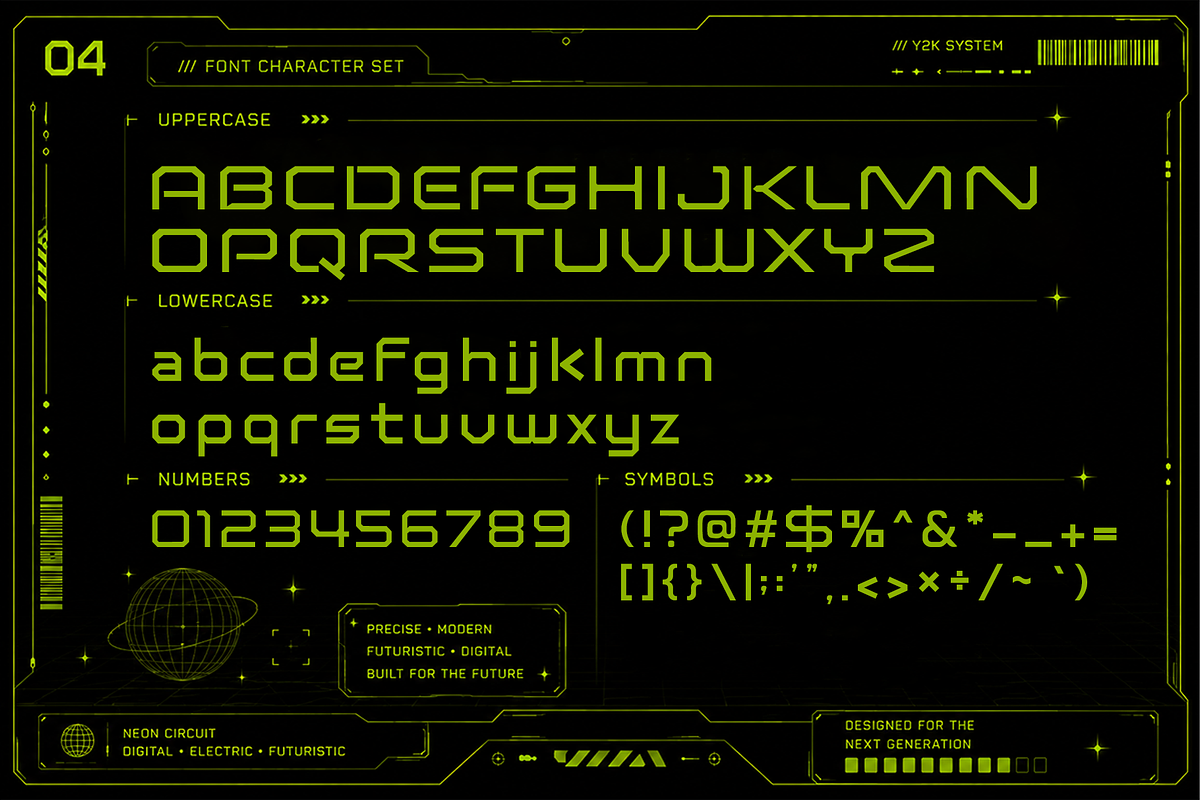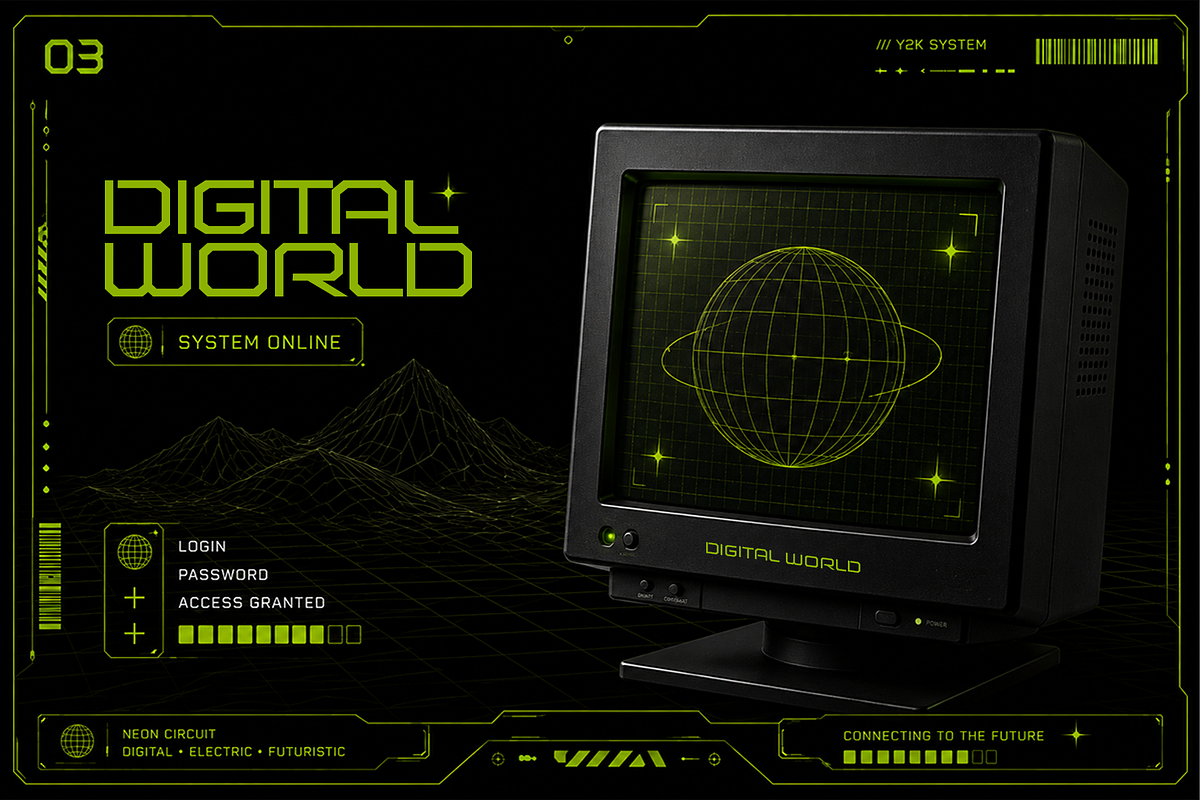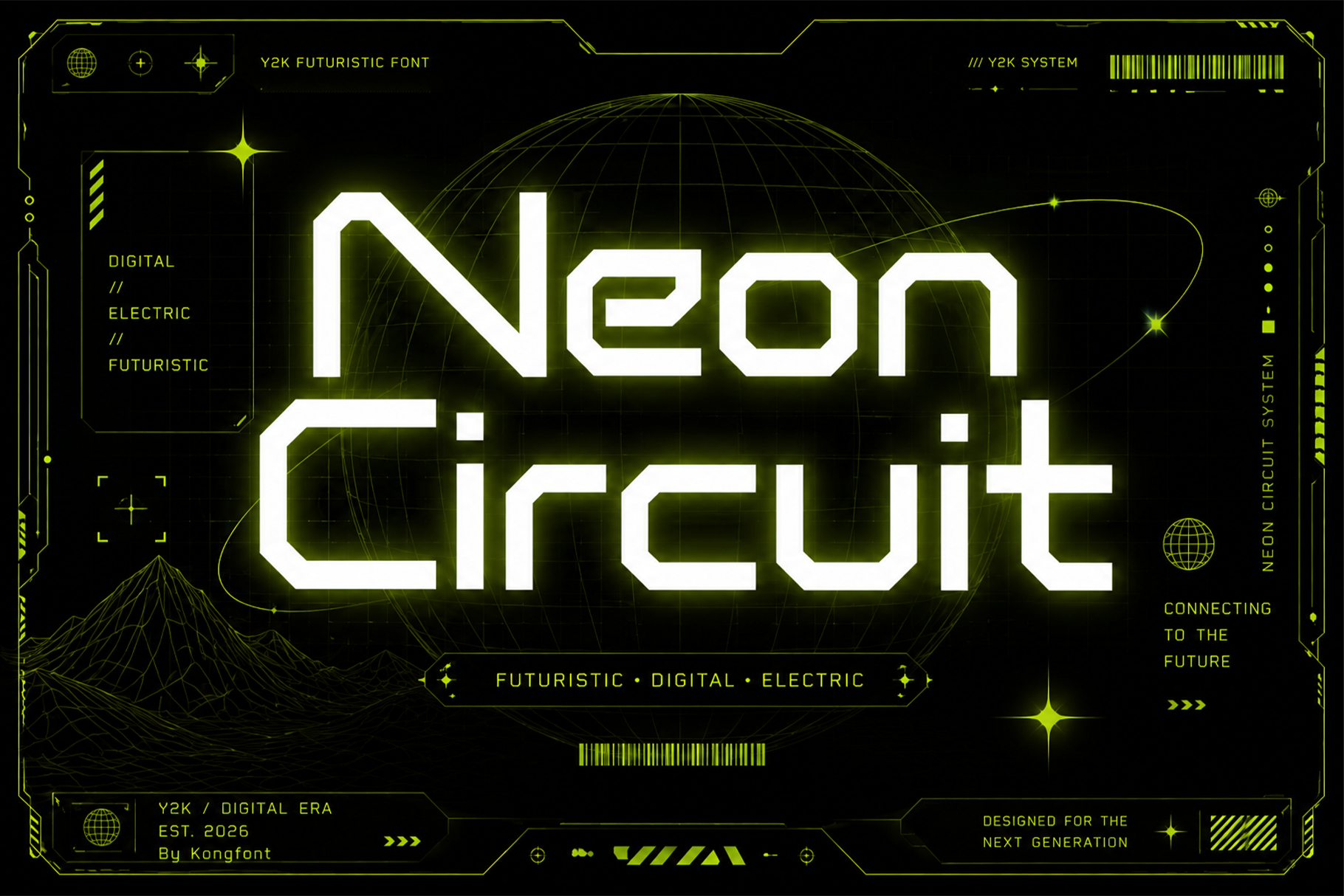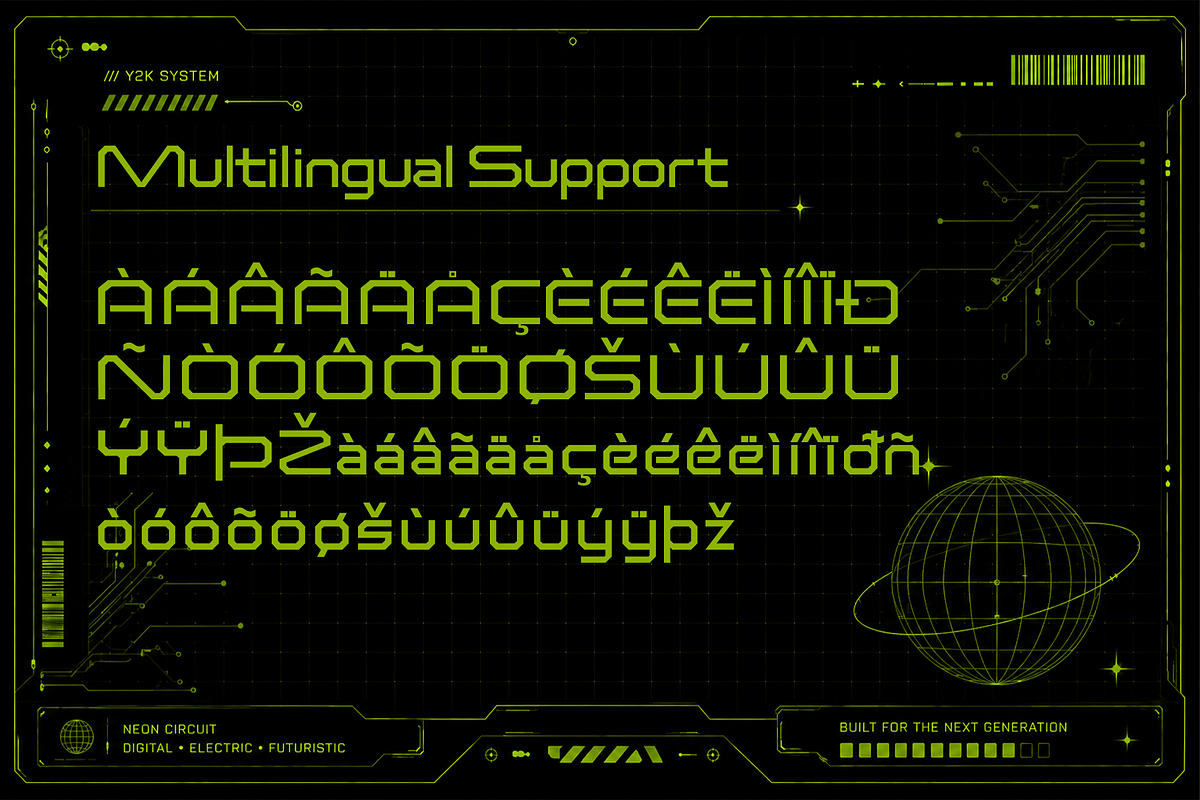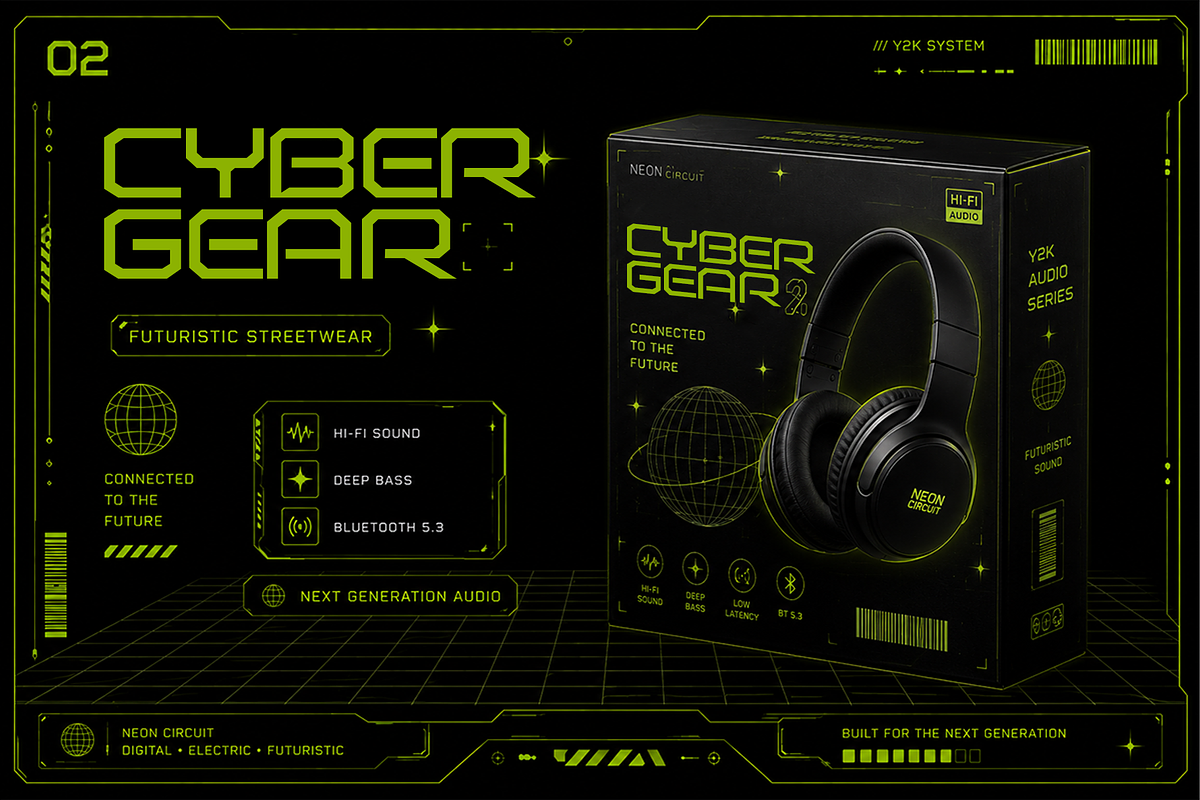
Neon Circuit - Modern Display Font
Neon Circuit is a modern display font inspired by glowing neon lights, digital networks, and futuristic technology. Featuring bold geometric letterforms, sleek lines, and high tech details, this typeface creates a powerful visual impact that feels both modern and innovative.
Designed for maximum versatility, the font includes uppercase and lowercase letters, numerals, punctuation, and multilingual support, making it suitable for both print and digital applications. Its futuristic aesthetic makes it ideal for headlines, logos, and creative projects that embrace innovation and digital culture.